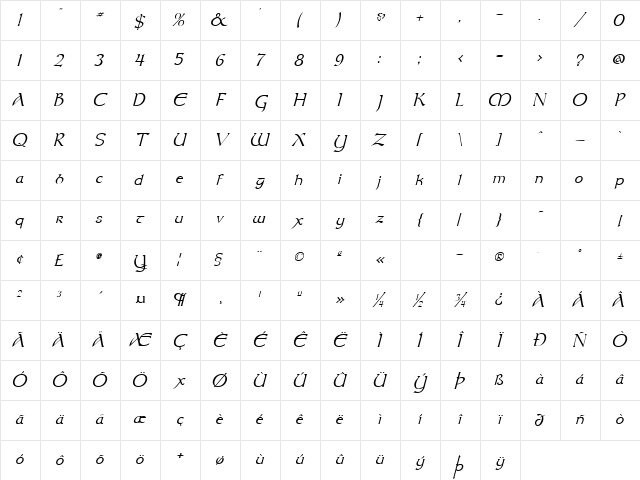
Moravian Italic
Moravian Family
Moravian Italic
Design Context for Moravian
Moravian is a composed and adaptable typeface that performs quietly and consistently across a wide range of design contexts. The slanted form adds forward momentum and visual energy.